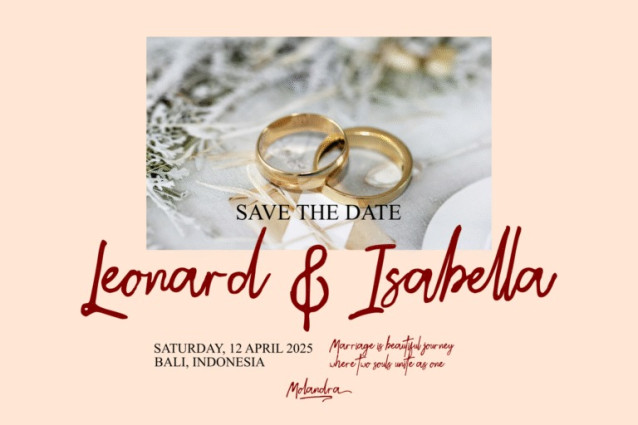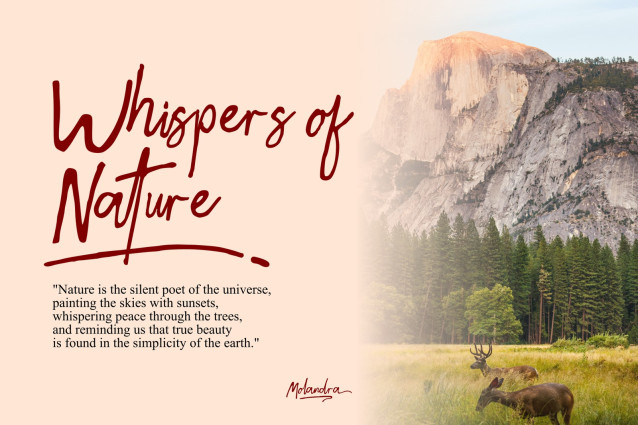
Molandra Script Font
Molandra Script Font is a handwritten script font designed to look like natural penmanship with a smooth and elegant flow. Its casual yet stylish strokes make it perfect for adding a personal touch to your creative projects.
Best for, Branding & logo design, Product packaging (food, beverage, cosmetics, fashion, etc.), Invitations & greeting cards, Social media posts, Quotes & typography art, Labels, posters, and print design